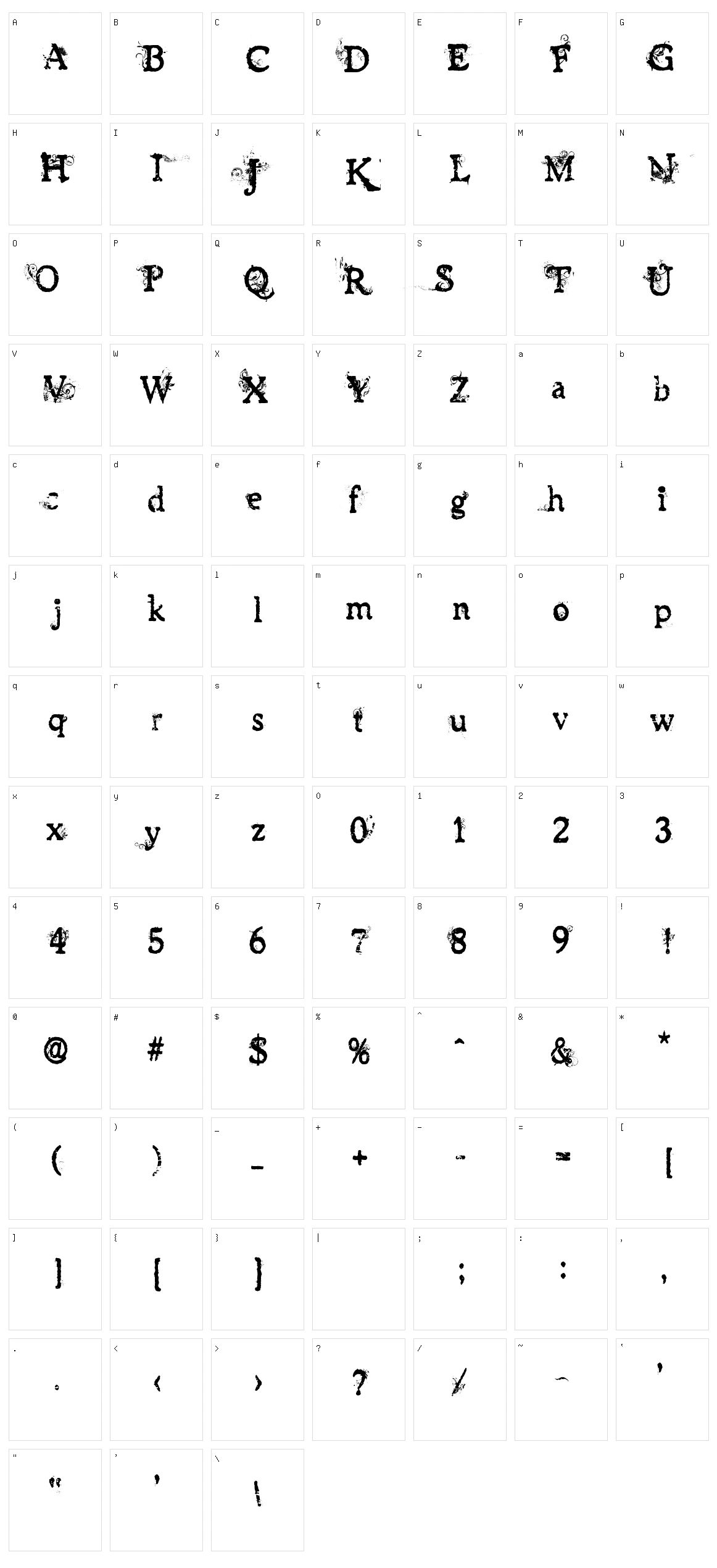
The free font James Han is carefully designed by Pi Luo Chiu, showcasing a thoughtful balance of creativity and usability and falls under the Eroded font style. When you download the ZIP file, it contains only 445.84 KB of font files, making it lightweight and quick to download. Please review the license details below to understand permitted usage and distribution rights. If license information is not available, we recommend using this font for personal projects only or contacting the author directly for commercial usage permissions.